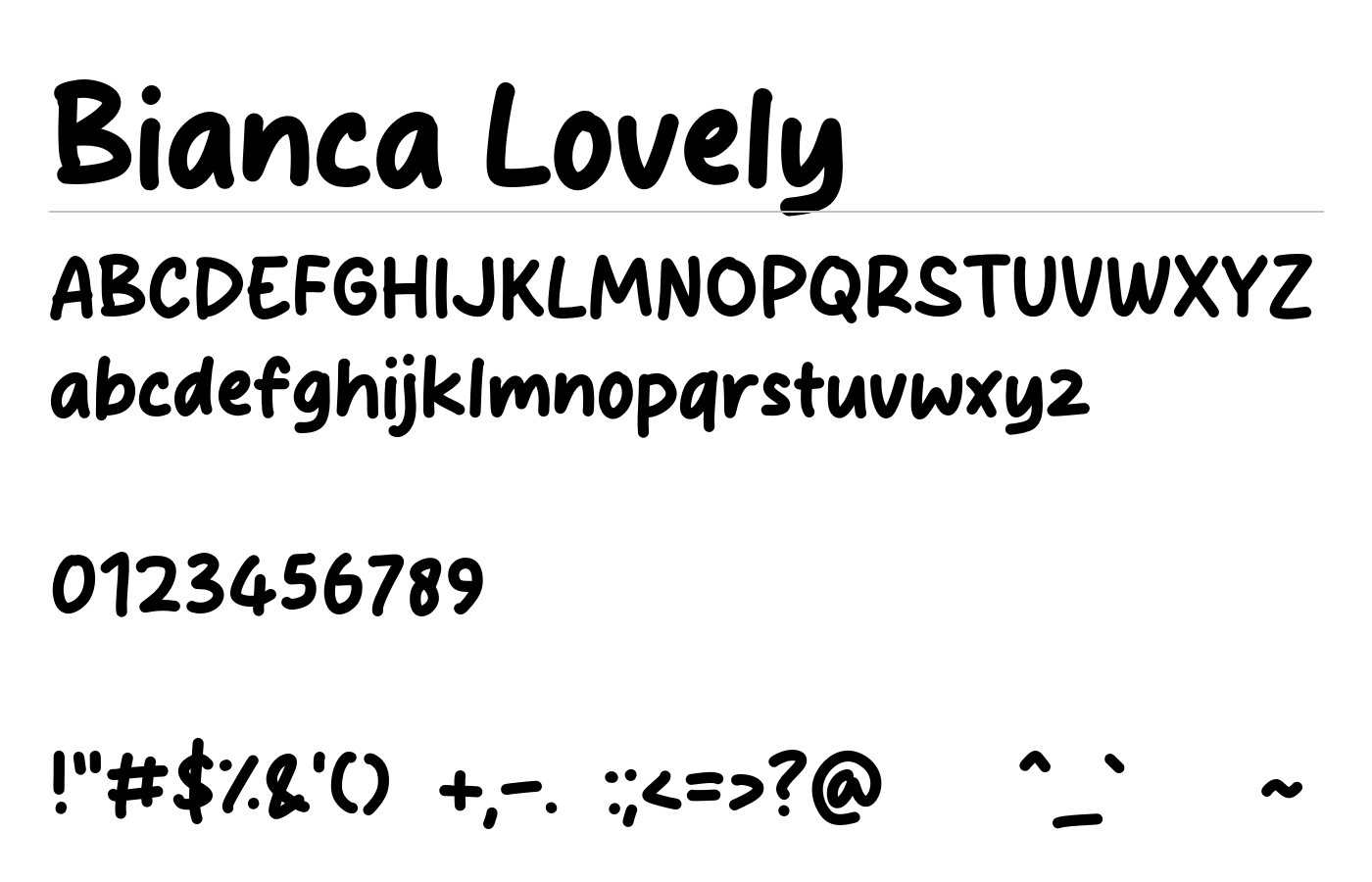
Bianca Lovely is a playful and casual sans serif font with a hand-drawn feel, featuring rounded, bold strokes and slightly irregular shapes that create warmth and approachability. Its medium weight and generous spacing make it ideal for fun, friendly branding, children's materials, and informal headlines where a lively and personal touch is desired. This font brings a cheerful and inviting personality perfect for creative projects that want to communicate joy and friendliness.
Bianca Lovely Font
About Bianca Lovely Font